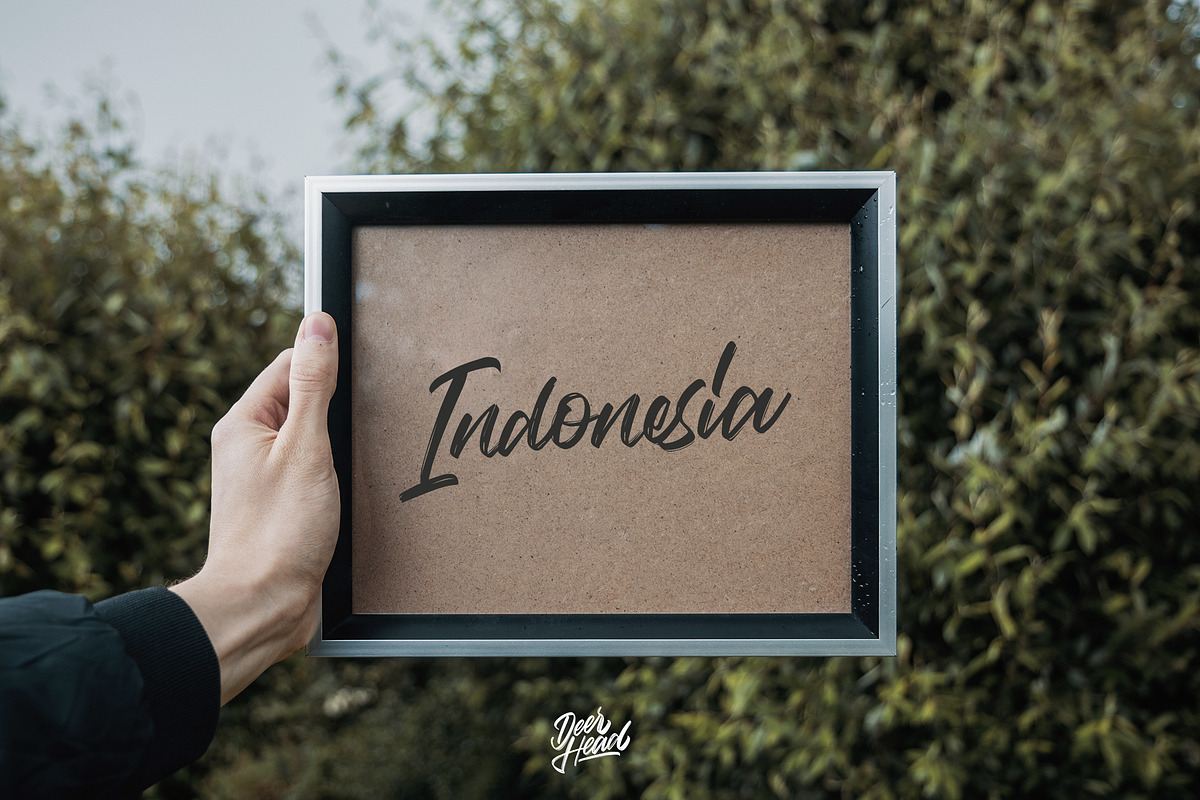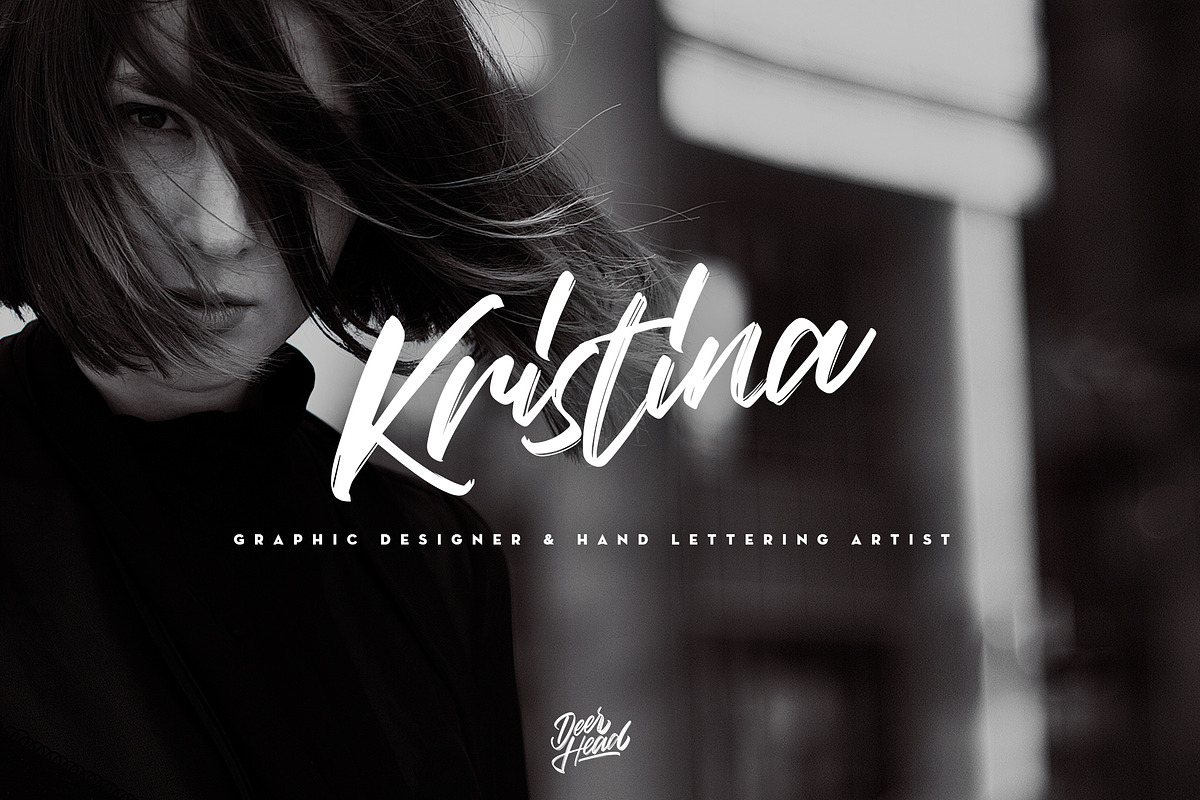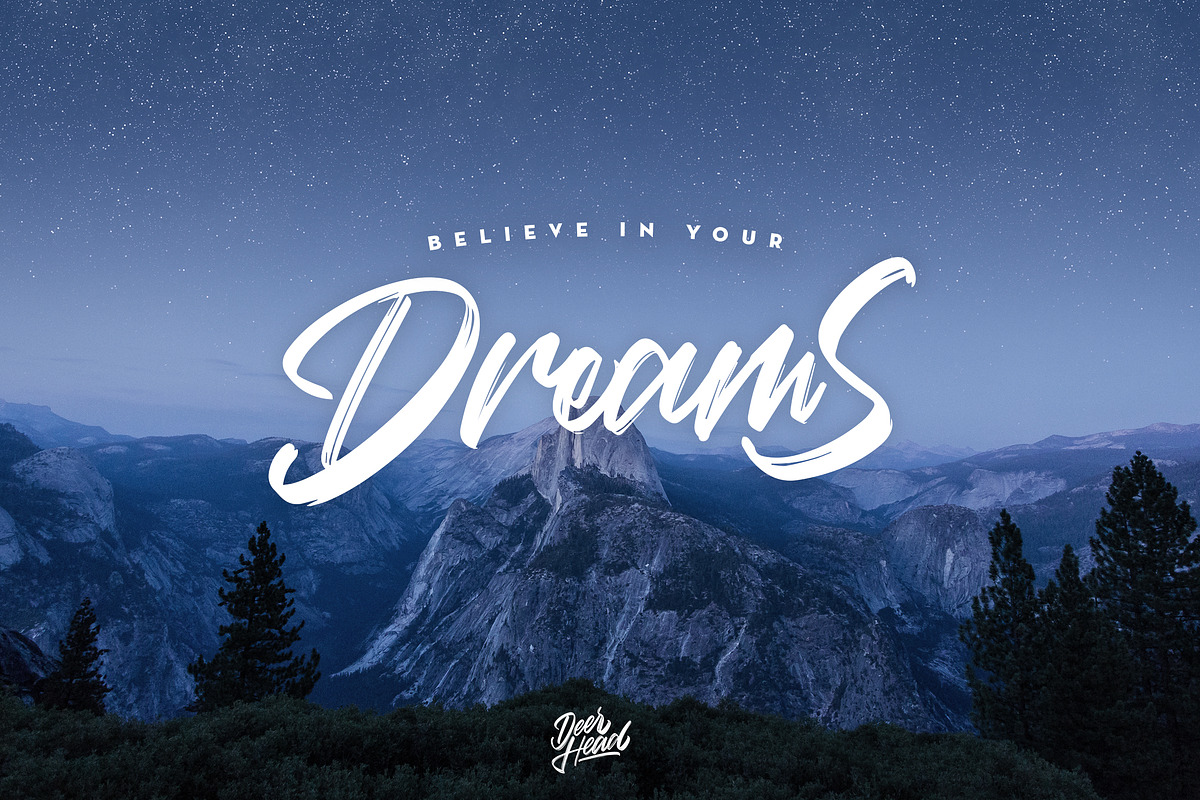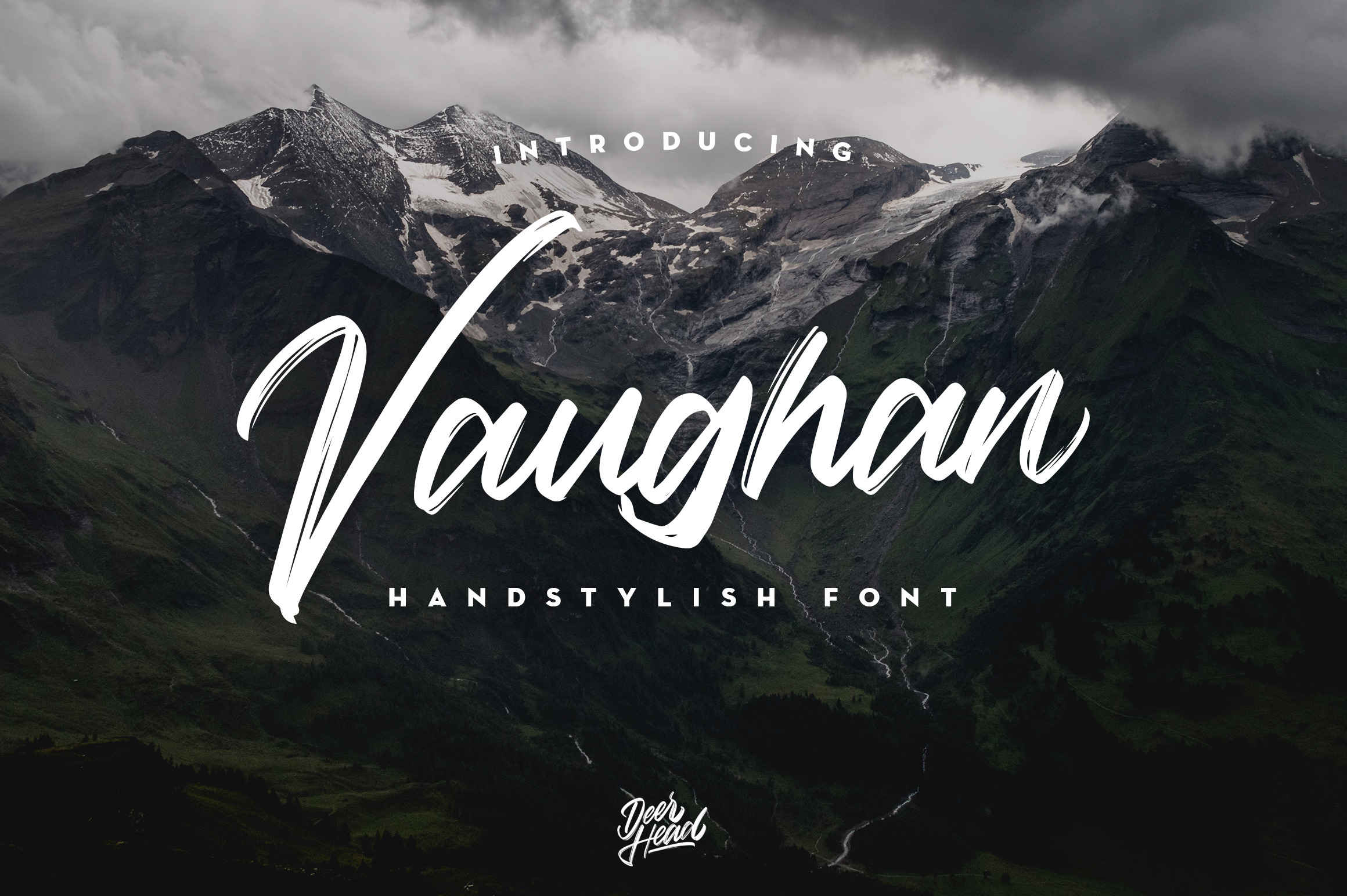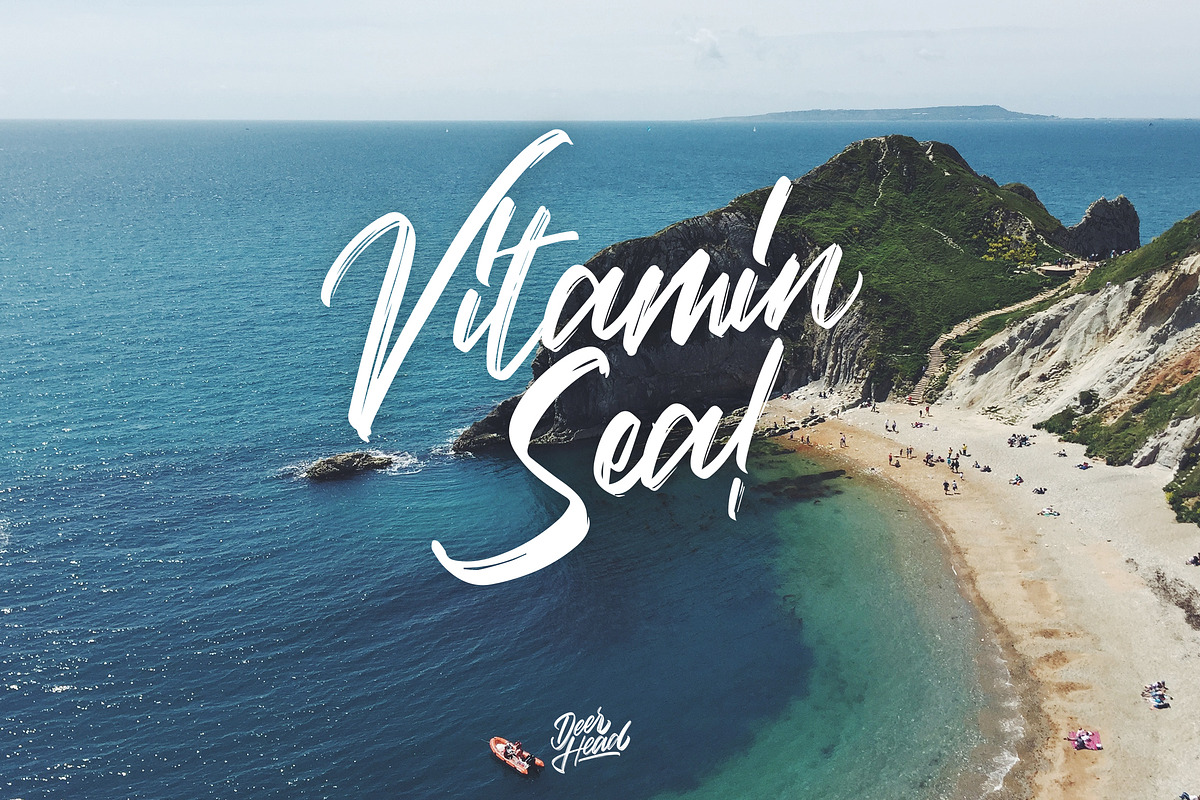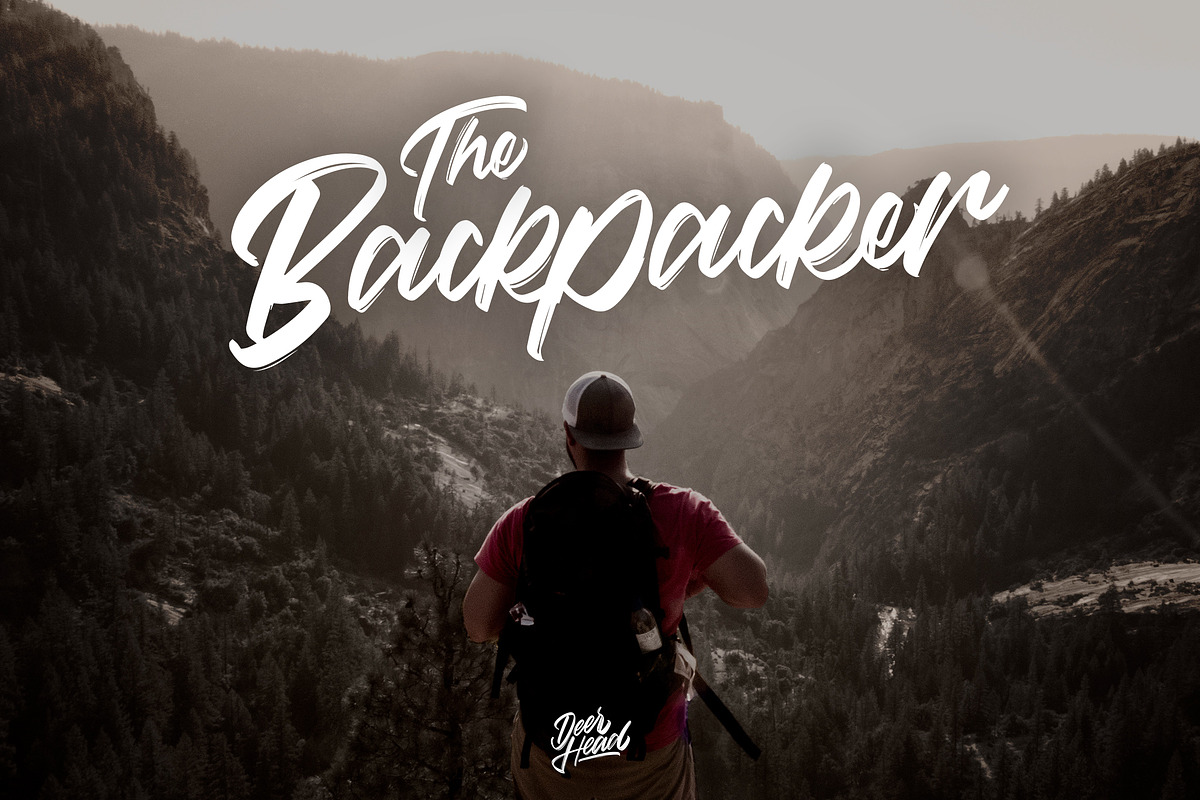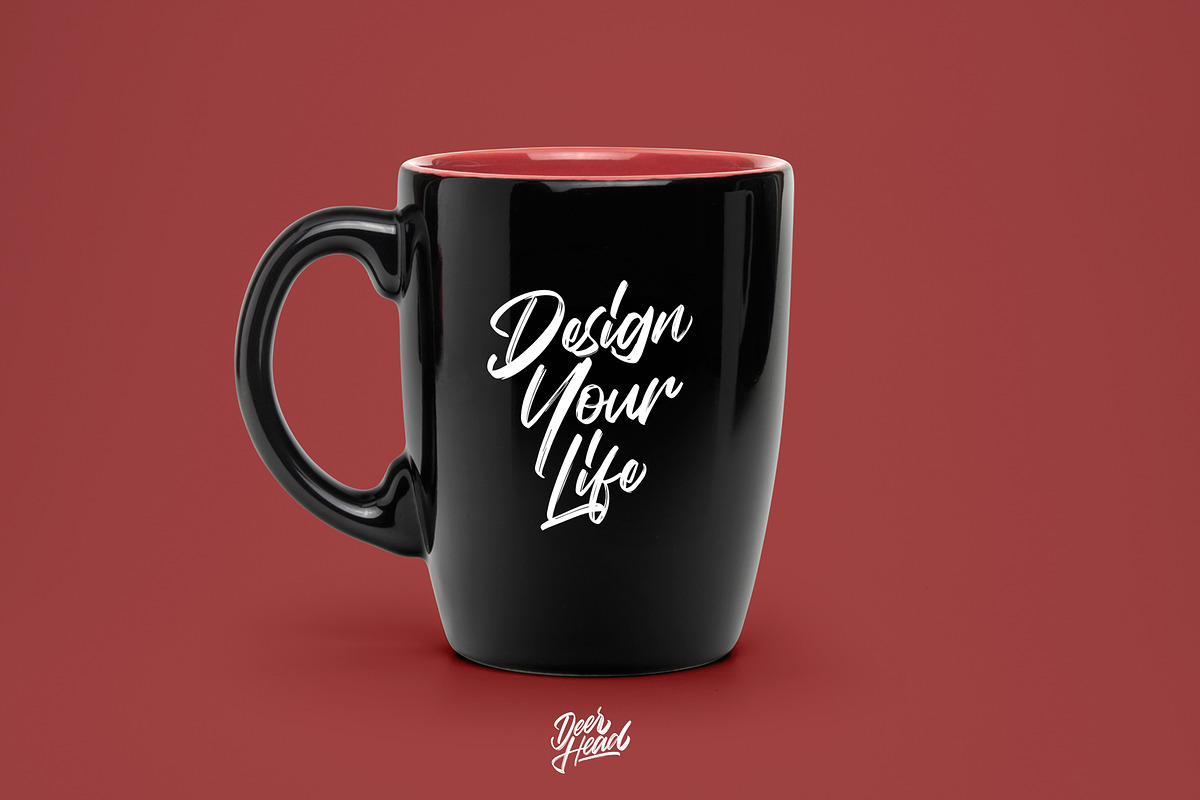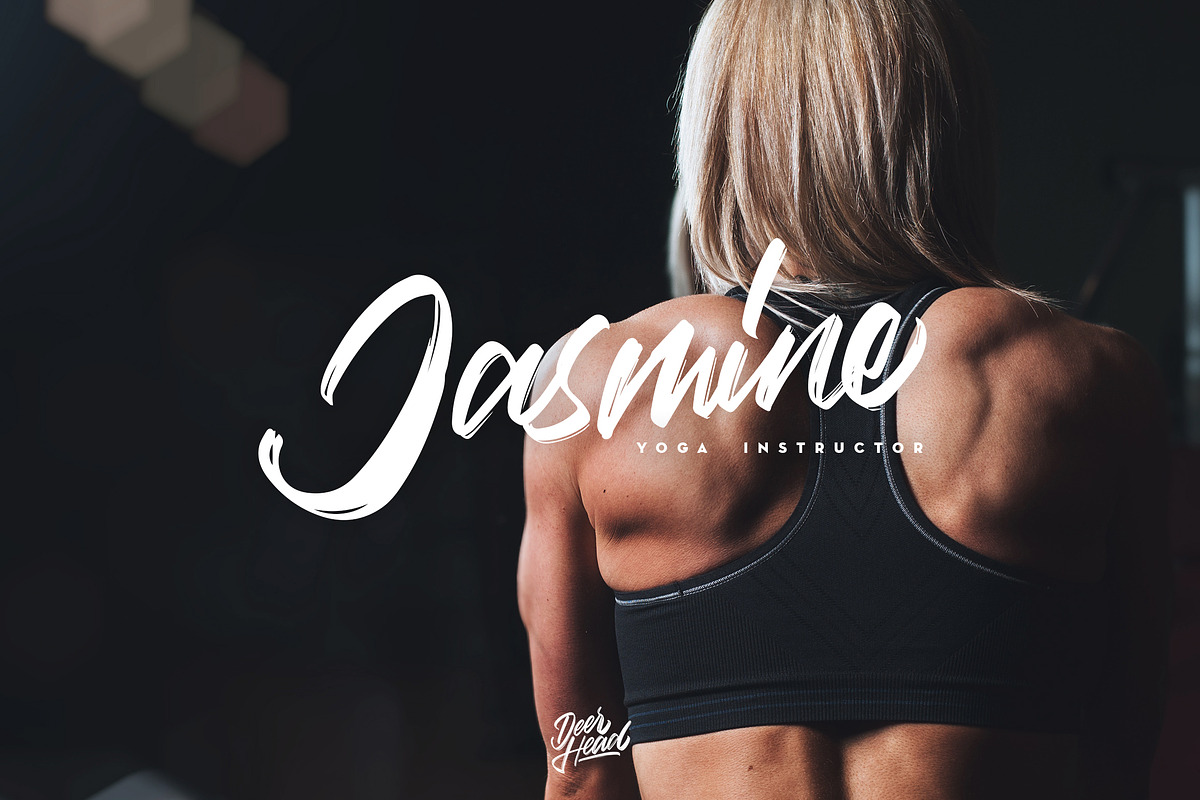
Vaughan Handstylish Font
Say hello for Vaughan Handstylish Font! Best match for logo, badge, packaging, headline, poster, t-shirt/apparel, greeting card, and wedding invitation. The flowing characters are ideal to make an attractive messages. I hope you have a blast using Vaughan Handstylish Font!